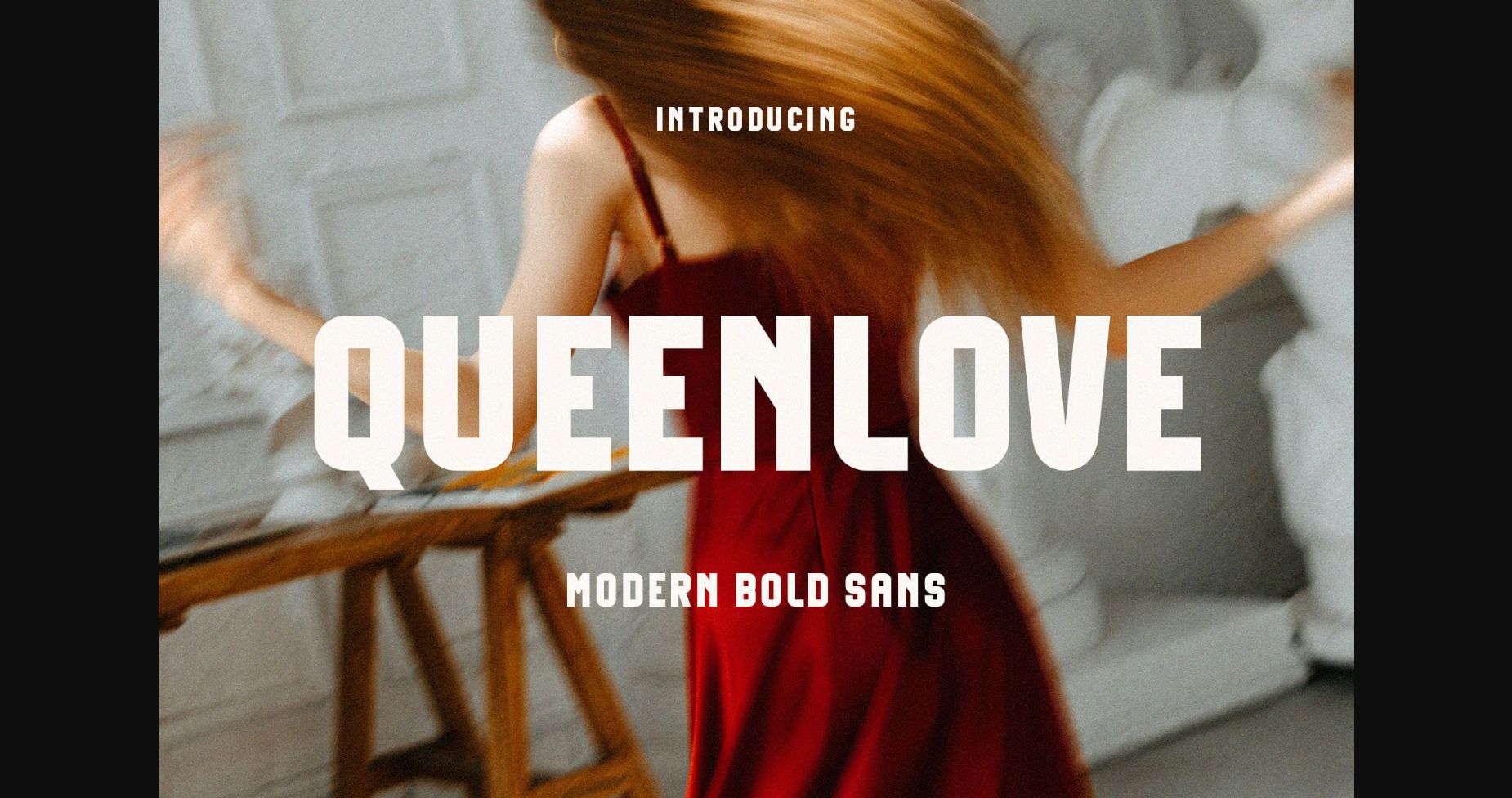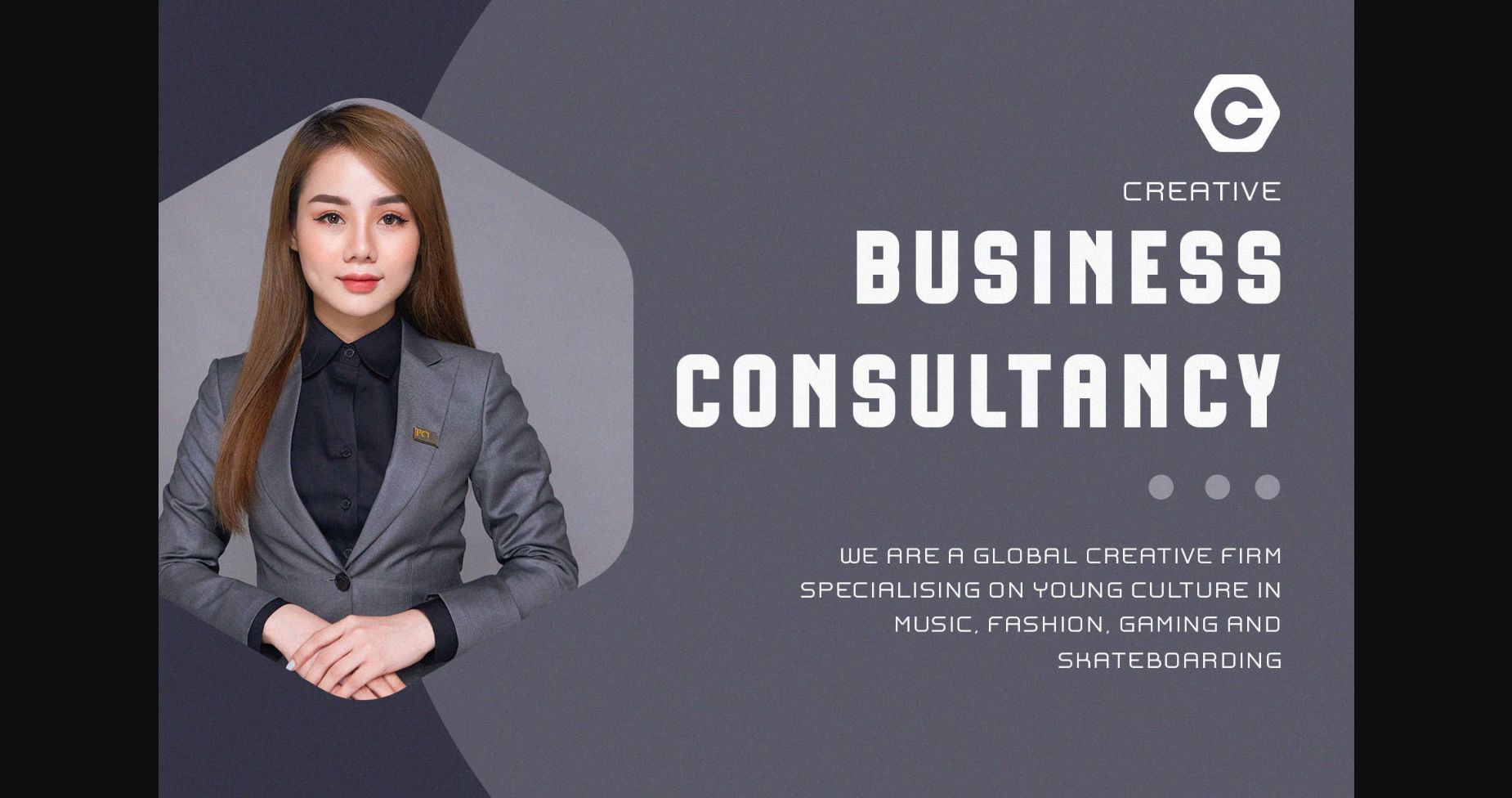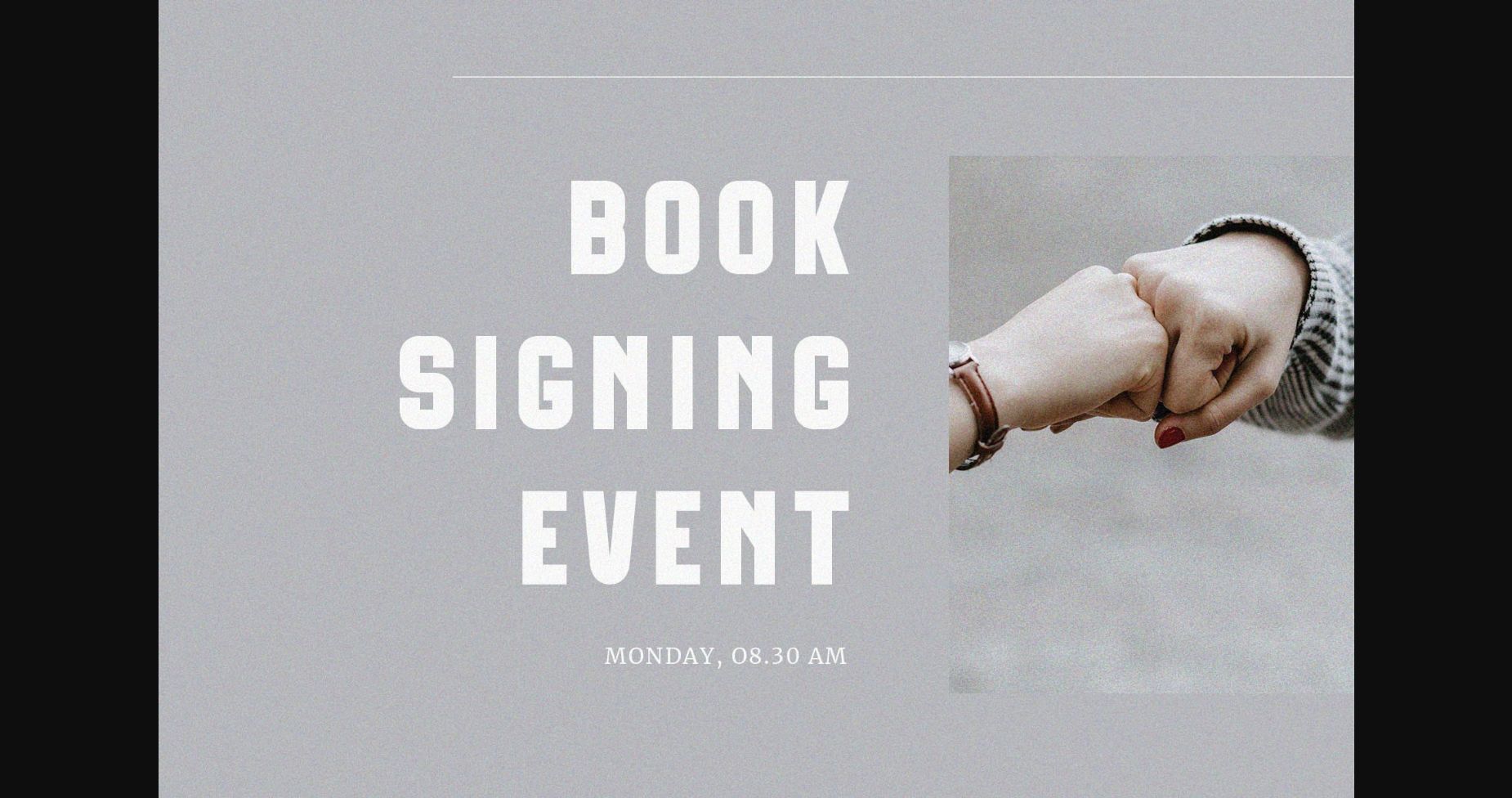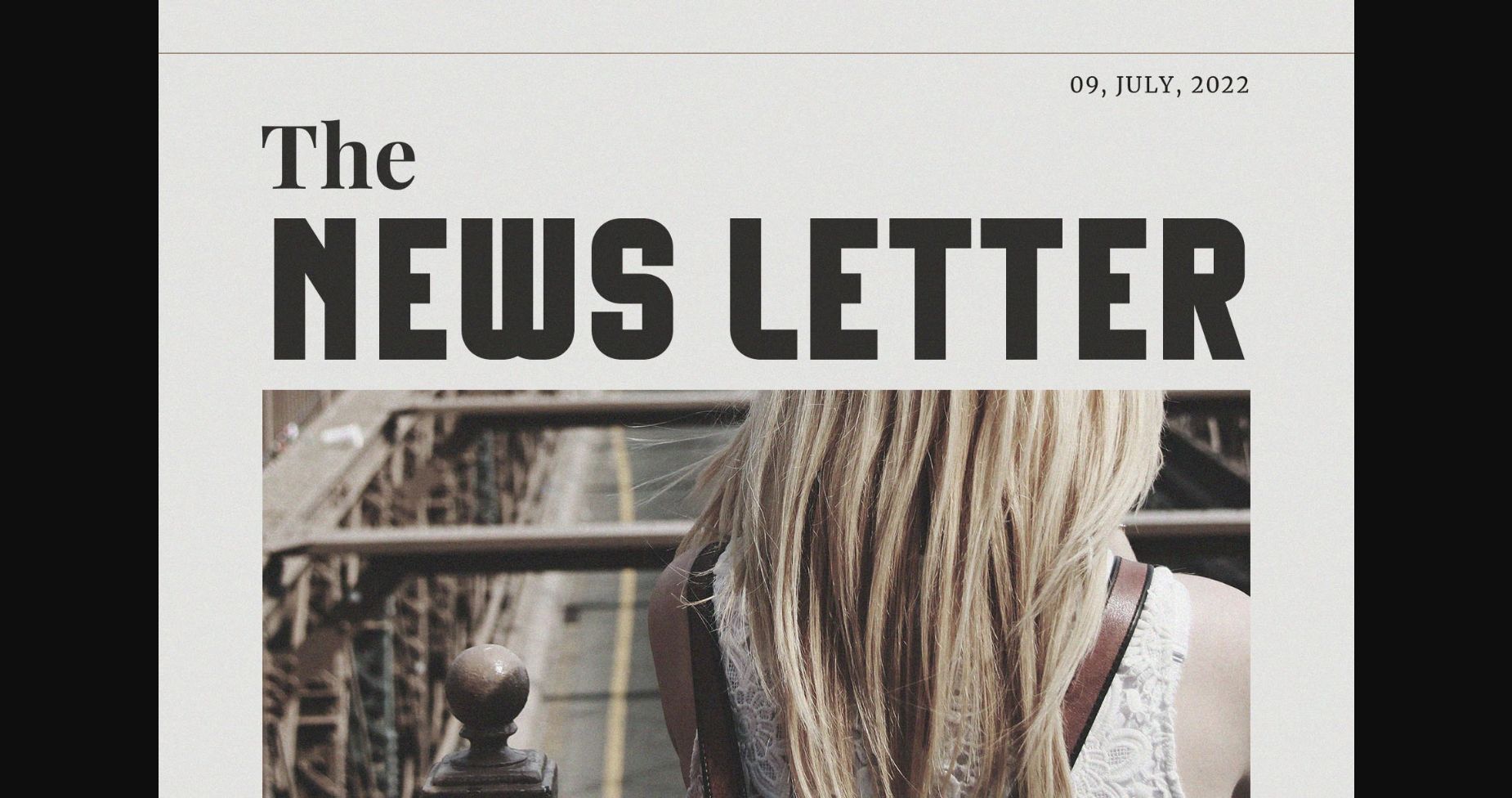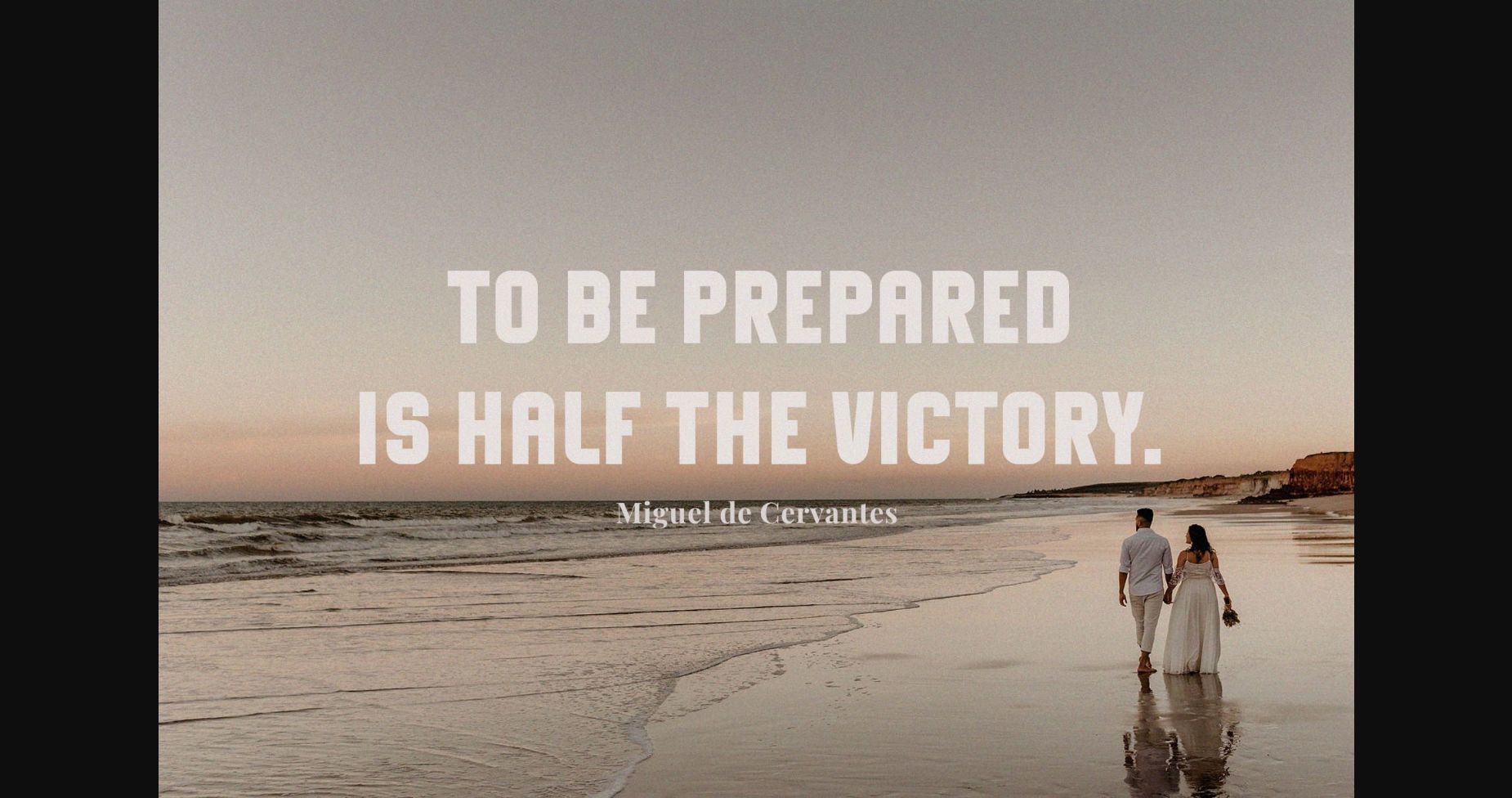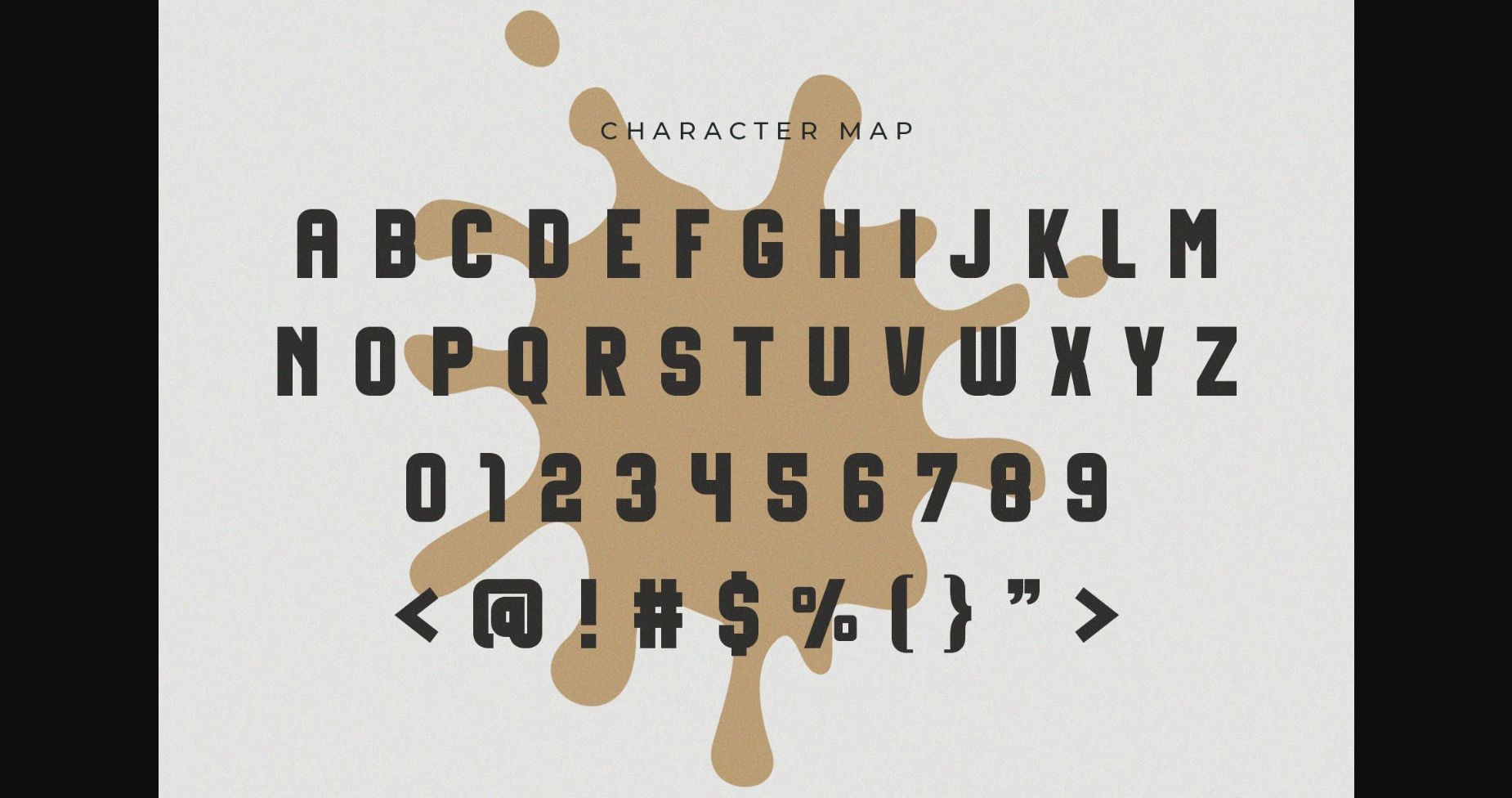
Queenlove Font
About Queenlove Font
Queenlove is a modern and bold sans serif font. Its distinct and well balanced letters make this font a masterpiece. Fall in love with its incredibly versatile style and use it to create spectacular designs!